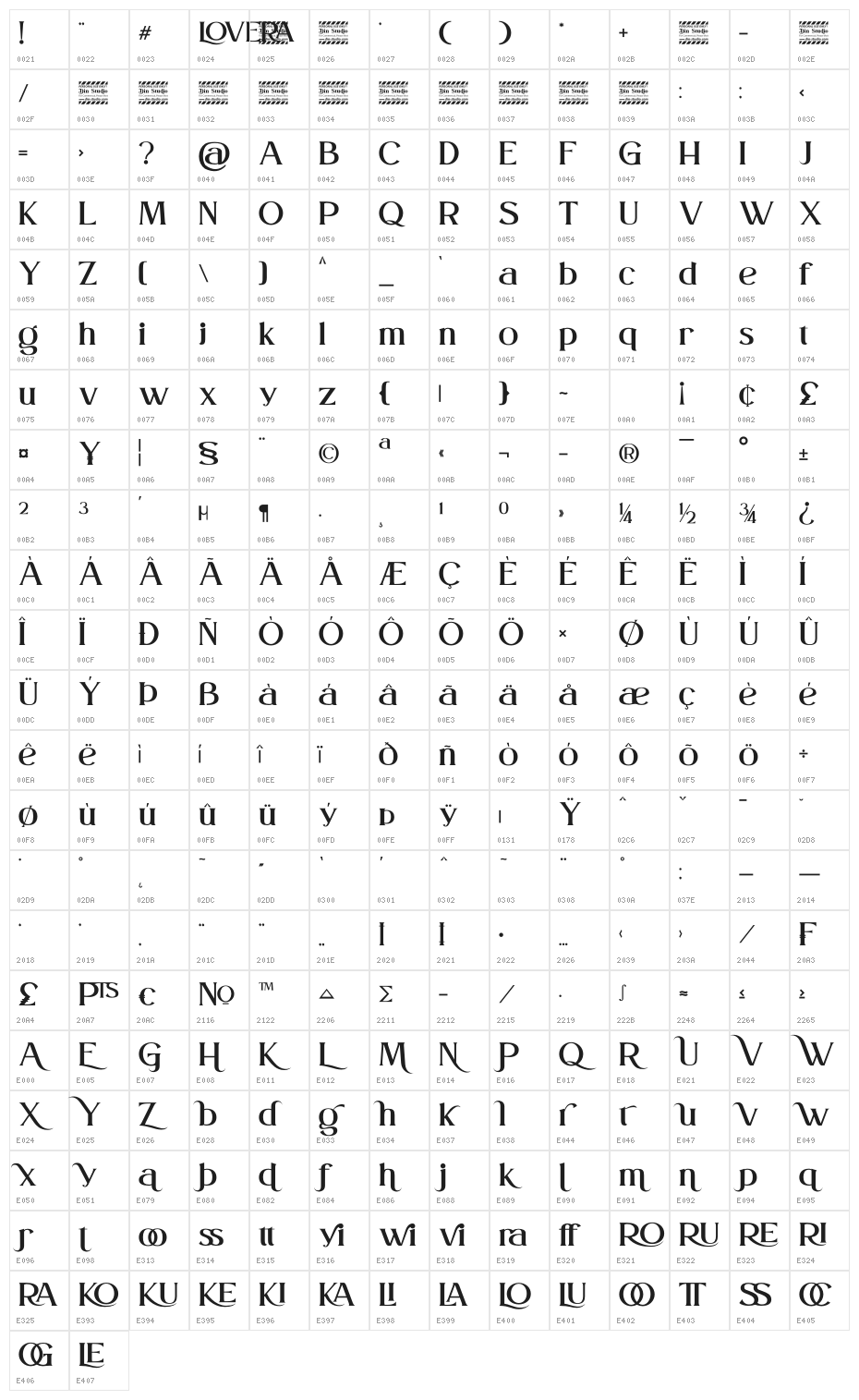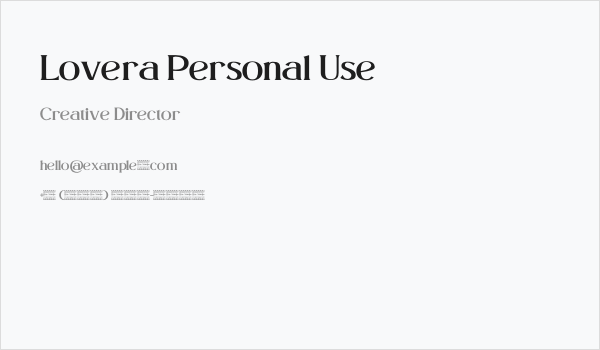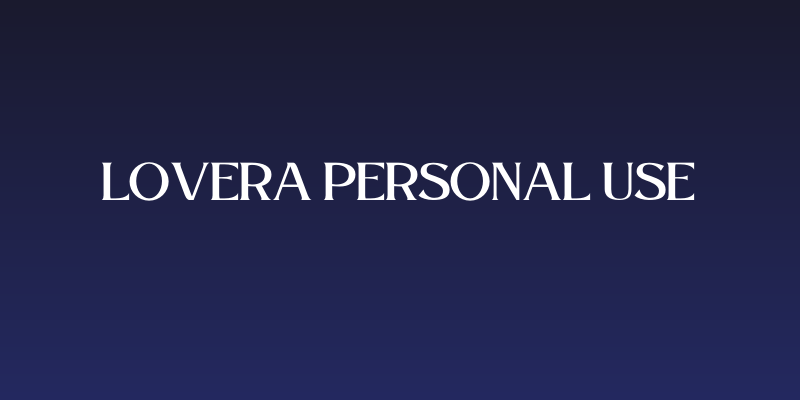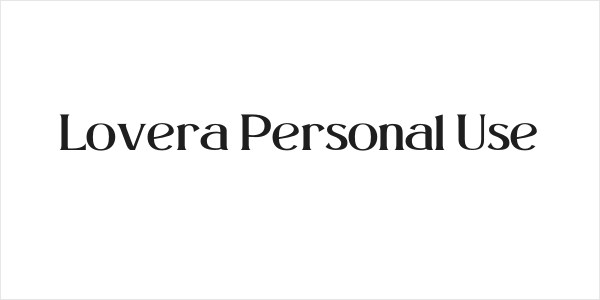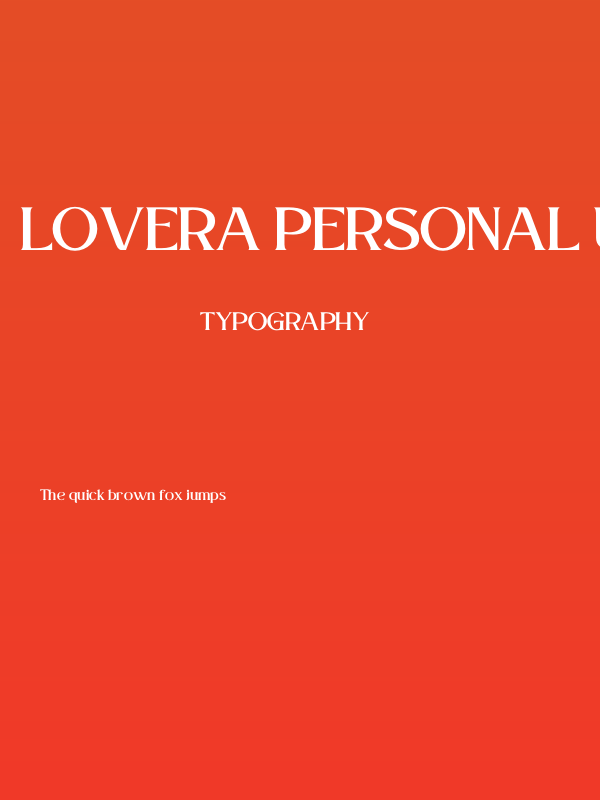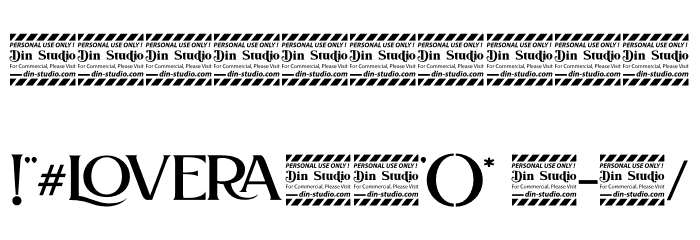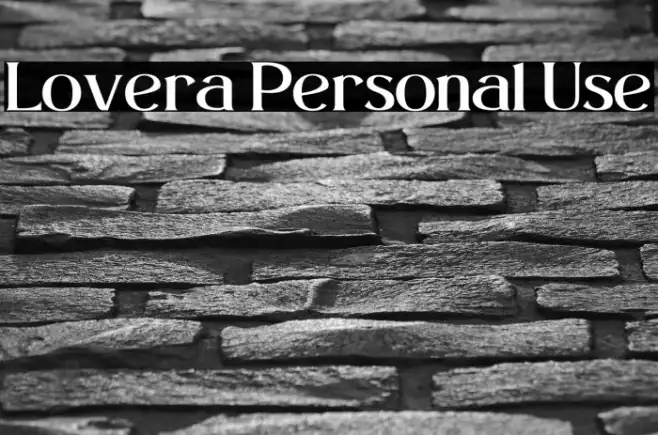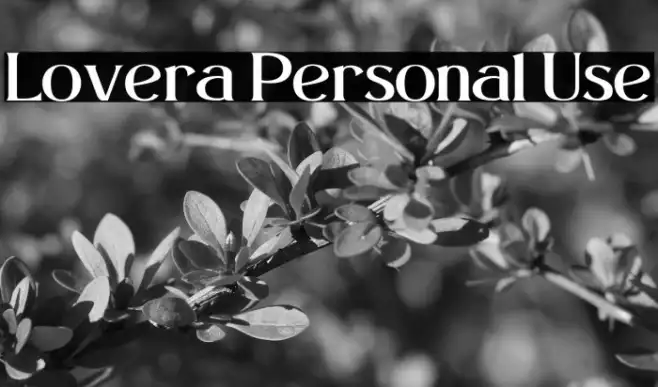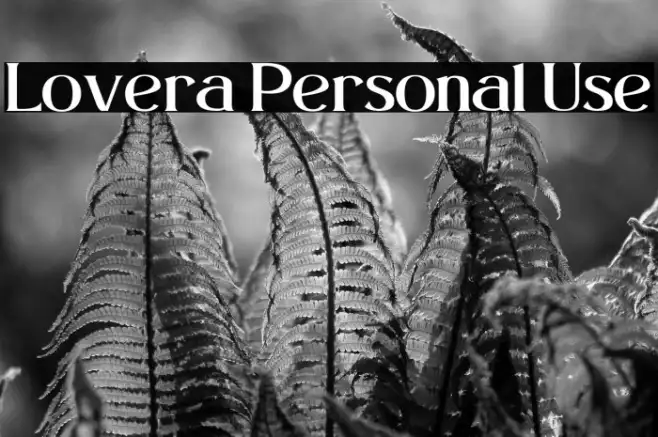
Lovera Personal Use Font
Lovera Personal Use Description
This font features a distinctive blend of modern and classic elements, characterized by its elegant and slightly condensed letterforms. The uppercase letters exhibit a sophisticated flair with subtle serifs, while the lowercase letters maintain a harmonious balance with smooth curves and consistent stroke widths. The numerals are designed to complement the overall style, offering clarity and readability. Special characters are thoughtfully integrated, adding to the font's versatility. The font's unique style makes it suitable for a variety of design projects, providing a touch of elegance and refinement.
| Use Case | Headlines, Logos, Editorial Design |
| Proposed Projects | Ideal for branding, editorial design, invitations, and luxury product packaging. |